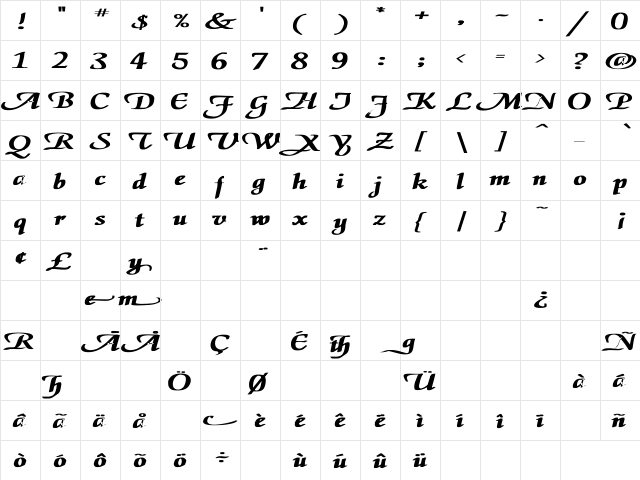
ElGar Ex Bold Bold
ElGar Ex Bold is a composed and adaptable typeface that performs quietly and consistently across a wide range of design contexts. The heavy weight commands attention and anchors typographic hierarchies.